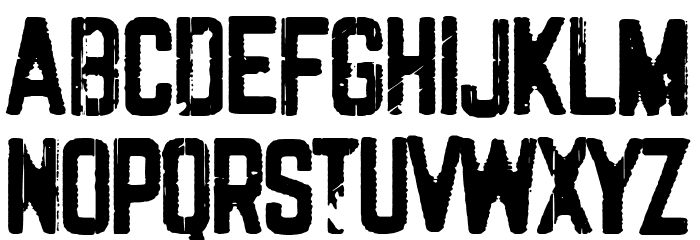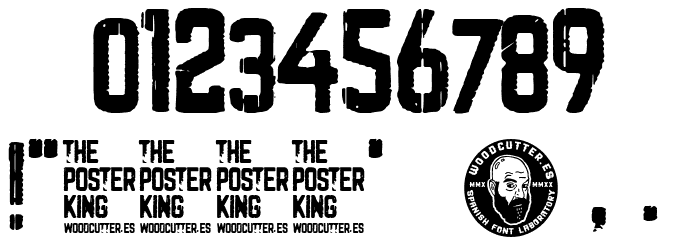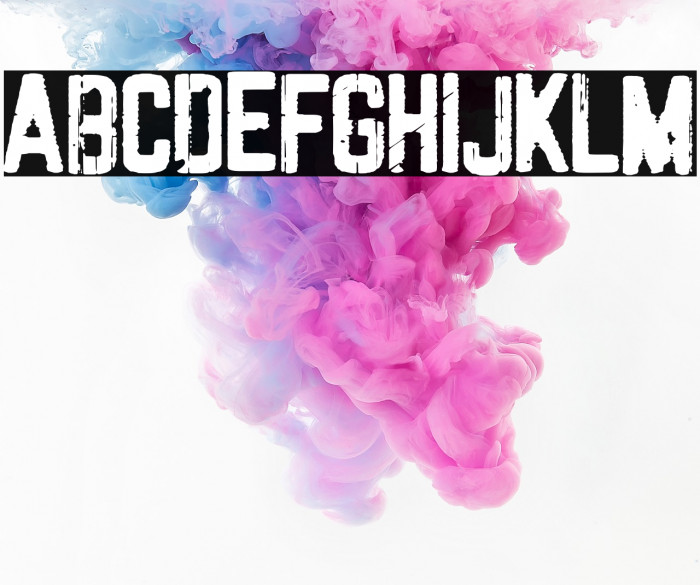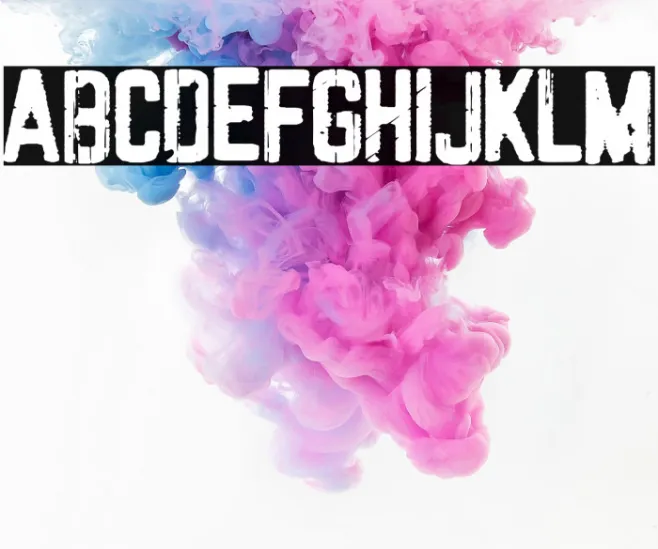
The Poster King Font
This font features a bold, distressed style with a rugged, textured appearance. The characters have a worn, vintage look, reminiscent of old posters or signage. The uppercase and lowercase letters are consistent in their distressed detailing, giving a cohesive feel across the alphabet. Numbers and special characters follow the same design, ensuring uniformity. The font's boldness and unique texture make it stand out, ideal for projects that require a strong visual impact.
A bold, distressed font with a vintage, textured appearance.
- Font: The Poster King
- Proposed Projects: Ideal for vintage posters, album covers, branding for rustic or industrial-themed businesses, and any design needing a bold, eye-catching typeface.
- Overall Style: Vintage